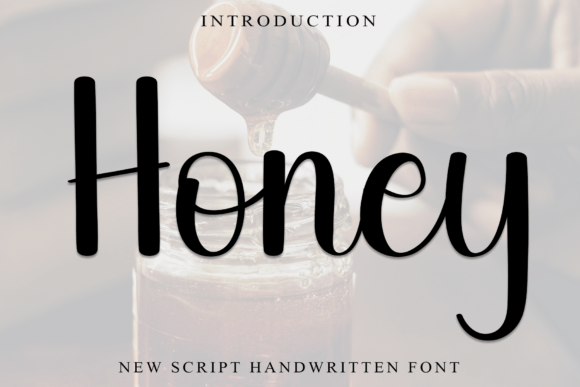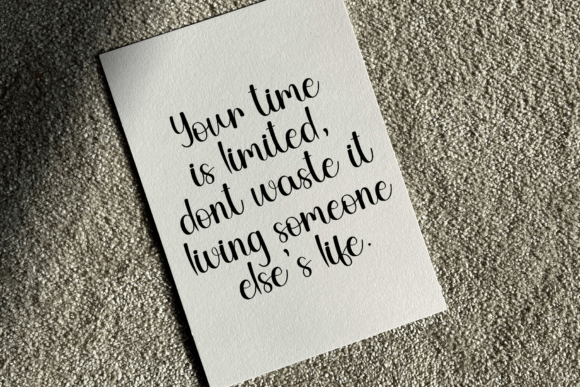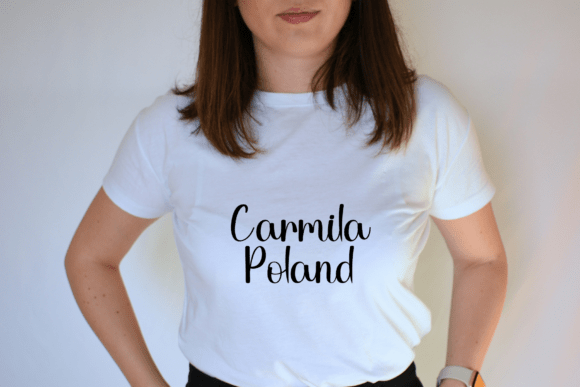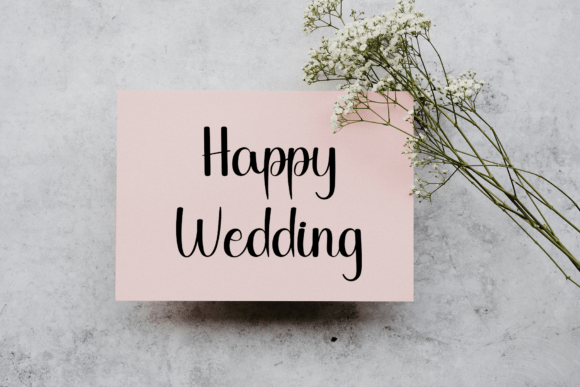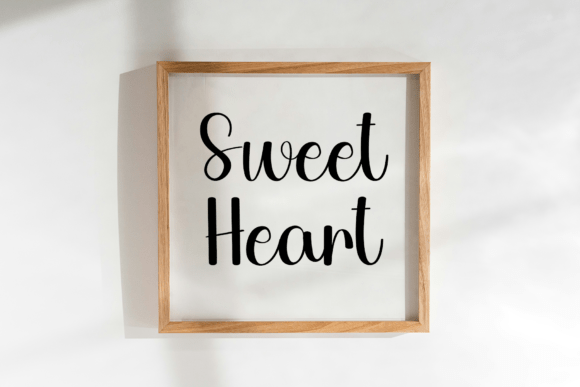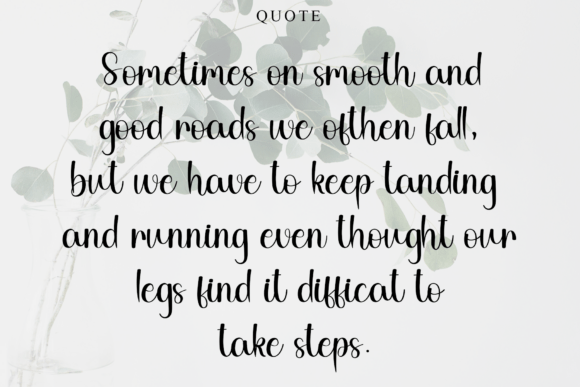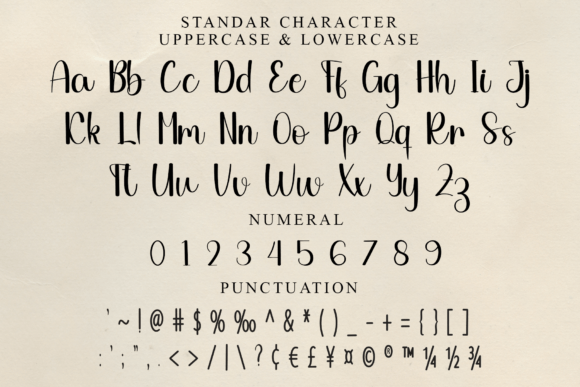
The Sweetest Addition to Your Design Palette
Have you ever stared at a blank page, wondering how to convey the perfect blend of warmth and whimsy in your design? The struggle is real, but with the right tools, you can bring your creative vision to life. For designers looking to add a touch of personality to their work, I’ve got a sweet secret to share: Honey Font.
This charming font is designed to evoke feelings of coziness and approachability, making it perfect for personal projects, invitations, and social media graphics. With its round, playful strokes and hand-drawn aesthetic, Honey Font is sure to add a unique touch to any design. Whether you’re a seasoned pro or a budding designer, this versatile font is a valuable addition to your toolkit, allowing you to create engaging and memorable designs with ease.
Honey Font Key Features
- Unique Characteristics: Honey Font features a unique, hand-drawn design with subtle texture and organic feel, making it perfect for creative projects and branding.
- Language Support: Honey Font supports a wide range of languages, including Latin, Cyrillic, and Greek alphabets, making it a versatile font for global projects.
- Scalability: Honey Font is designed to be highly scalable, ensuring that it looks great in both small and large text sizes, from body text to headings and titles.
Honey Font Review
I recently had the chance to work with the Honey Font, and here’s my honest review.
- The font’s friendly and approachable feel makes it perfect for branding and marketing materials.
- The script-like connections between letters give it a personal touch, which is great for creating a sense of connection with your audience.
- The font’s versatility allows it to be used in a wide range of applications, from digital displays to print materials.
- The font may not be the best choice for body text due to its large x-height, which can make it feel cluttered at smaller sizes.
- The font’s connections between letters can sometimes make it difficult to read at high speeds, particularly in digital displays.
- The font’s style may not be suitable for all types of content, such as formal documents or technical writing.
Overall, the Honey Font is a great choice for designers looking to add a touch of warmth and personality to their projects. While it may have some limitations, its unique style and versatility make it a valuable addition to any designer’s toolkit.
Common Use Cases for Honey Font
Honey Font is commonly used in:
Food and beverage branding.